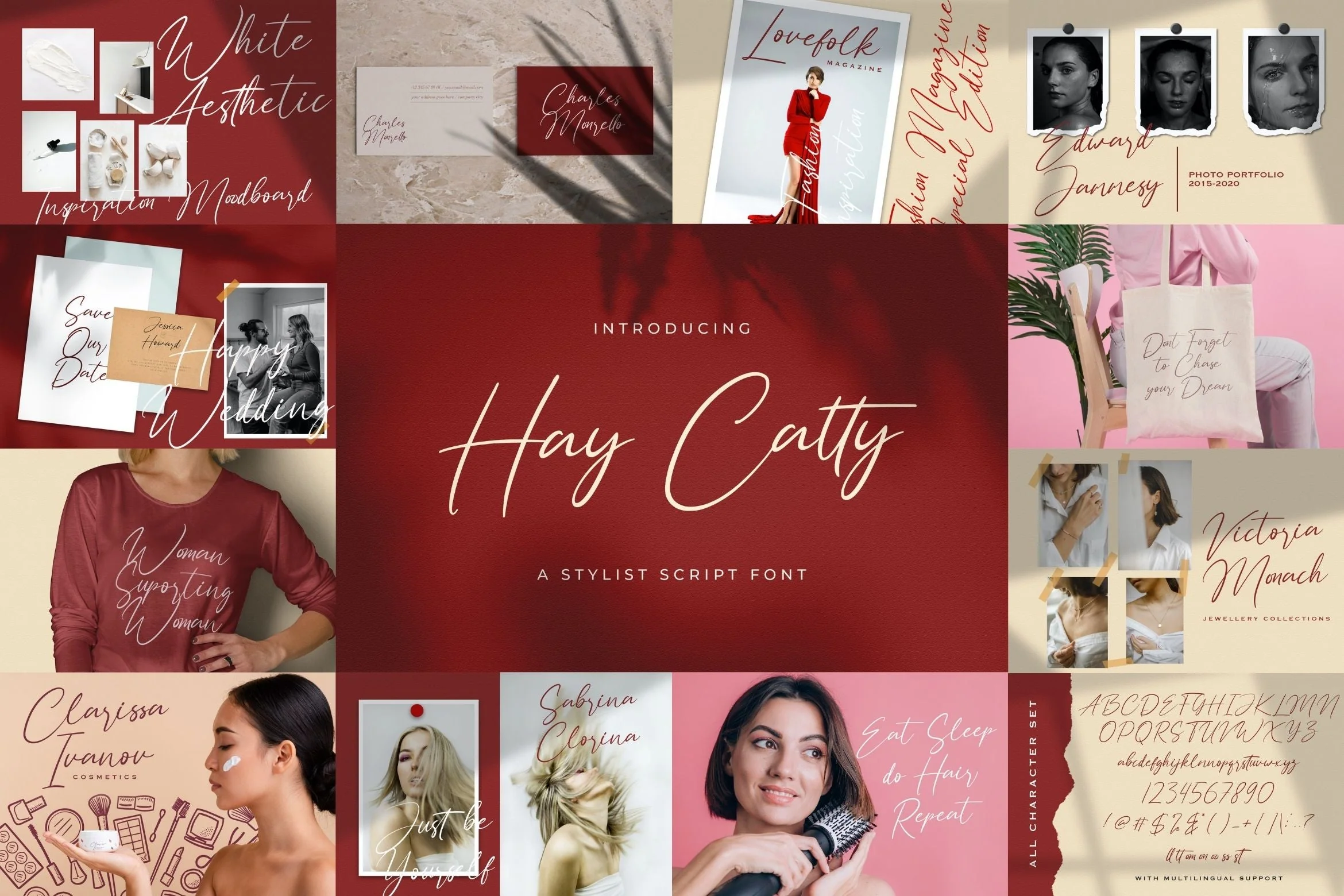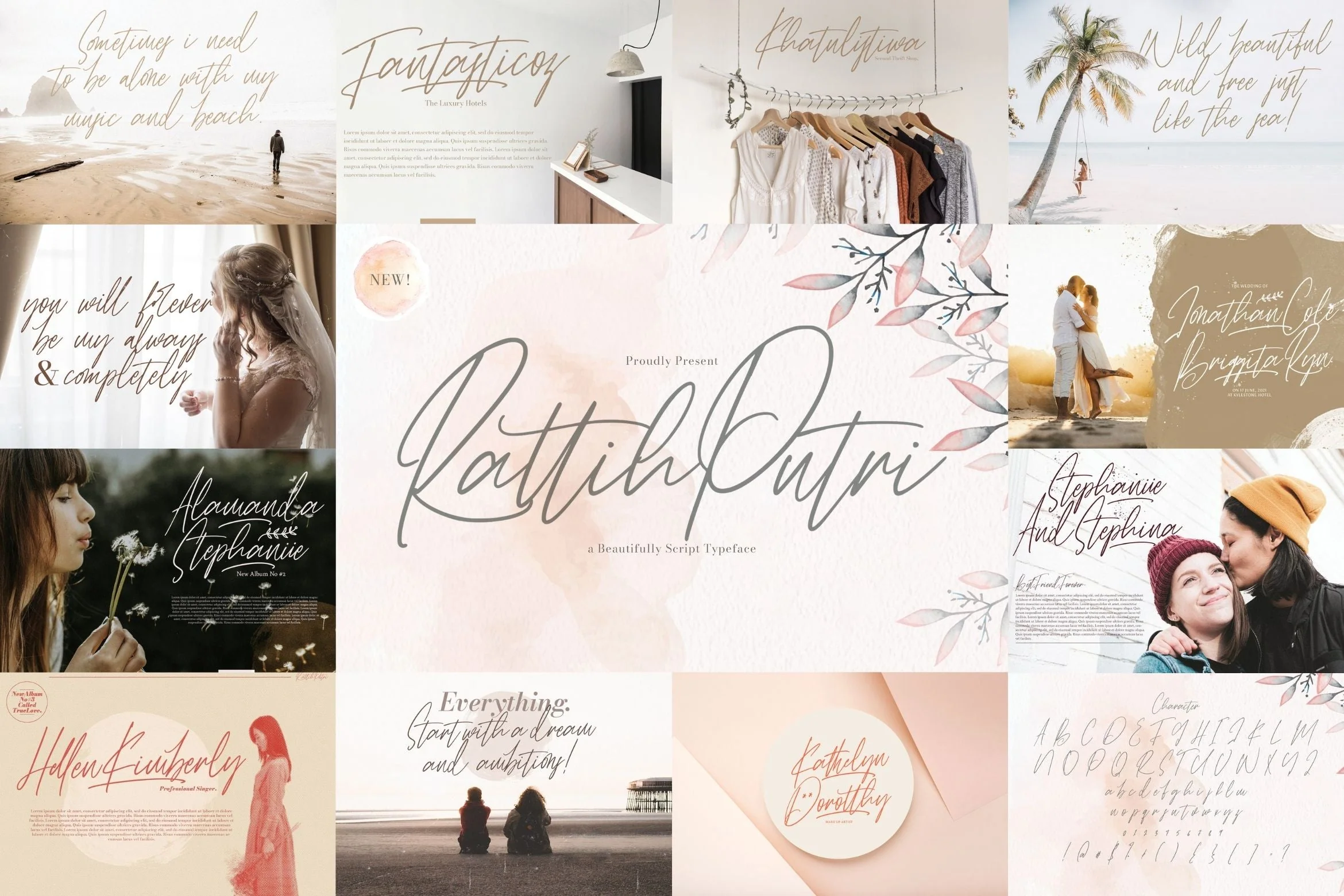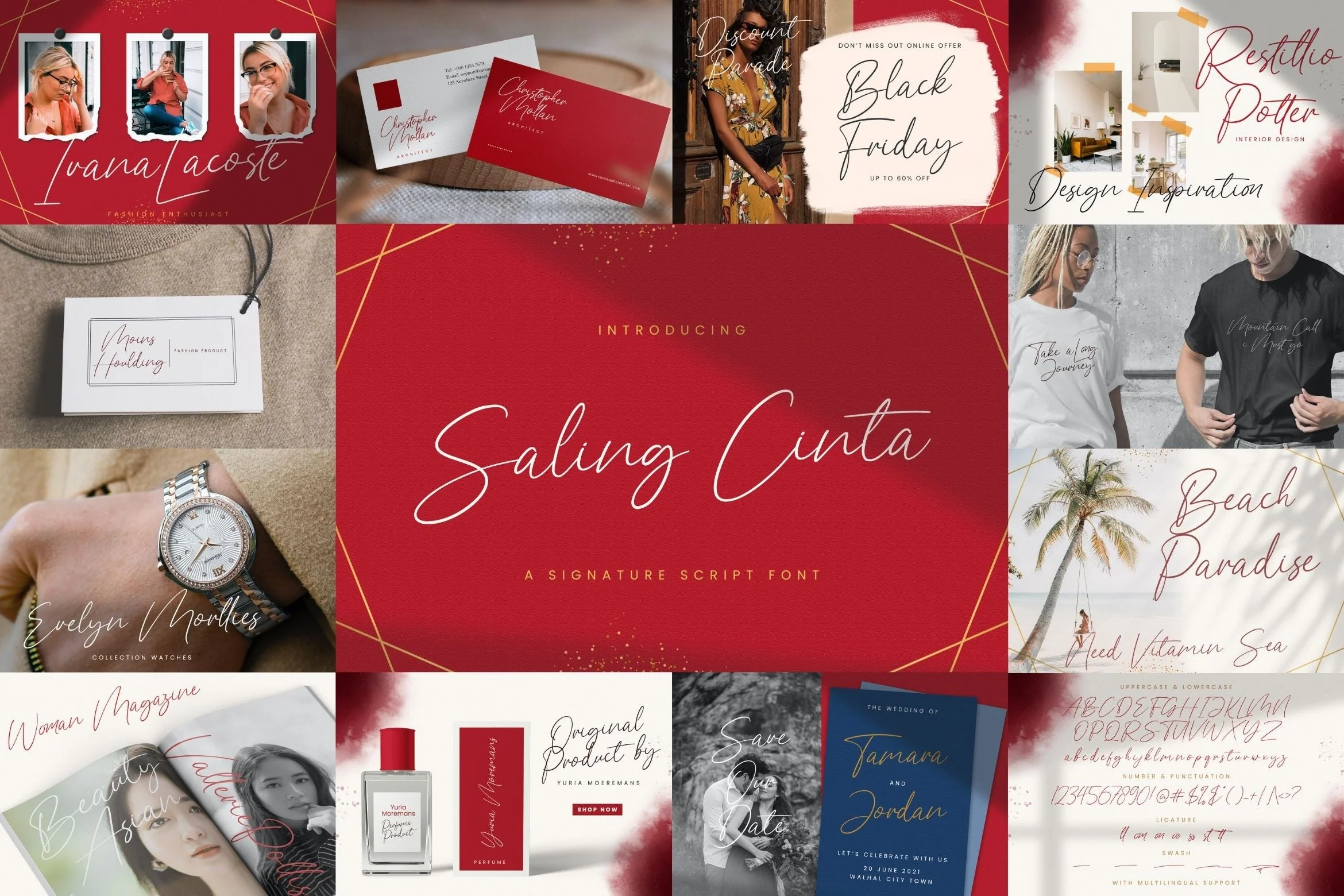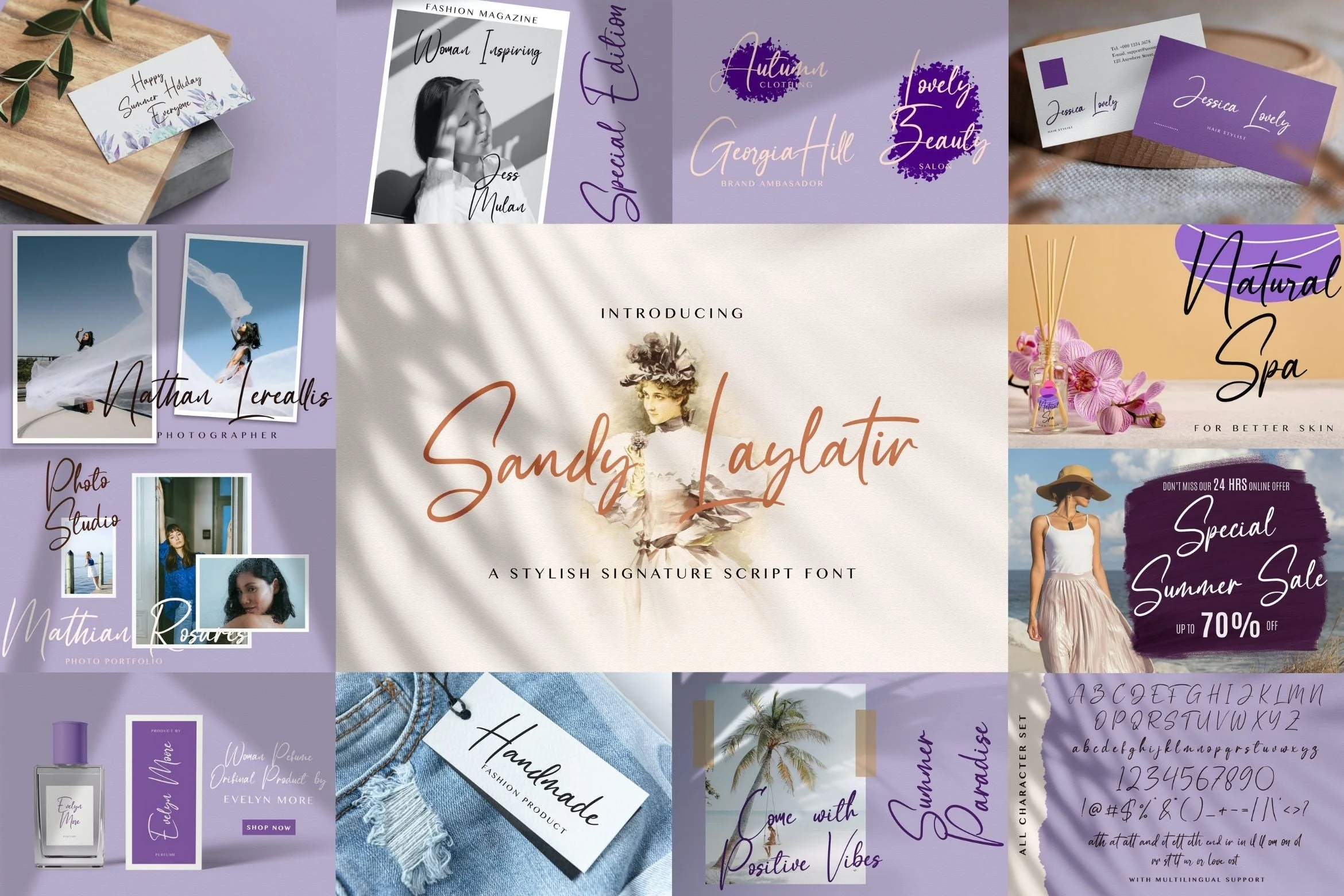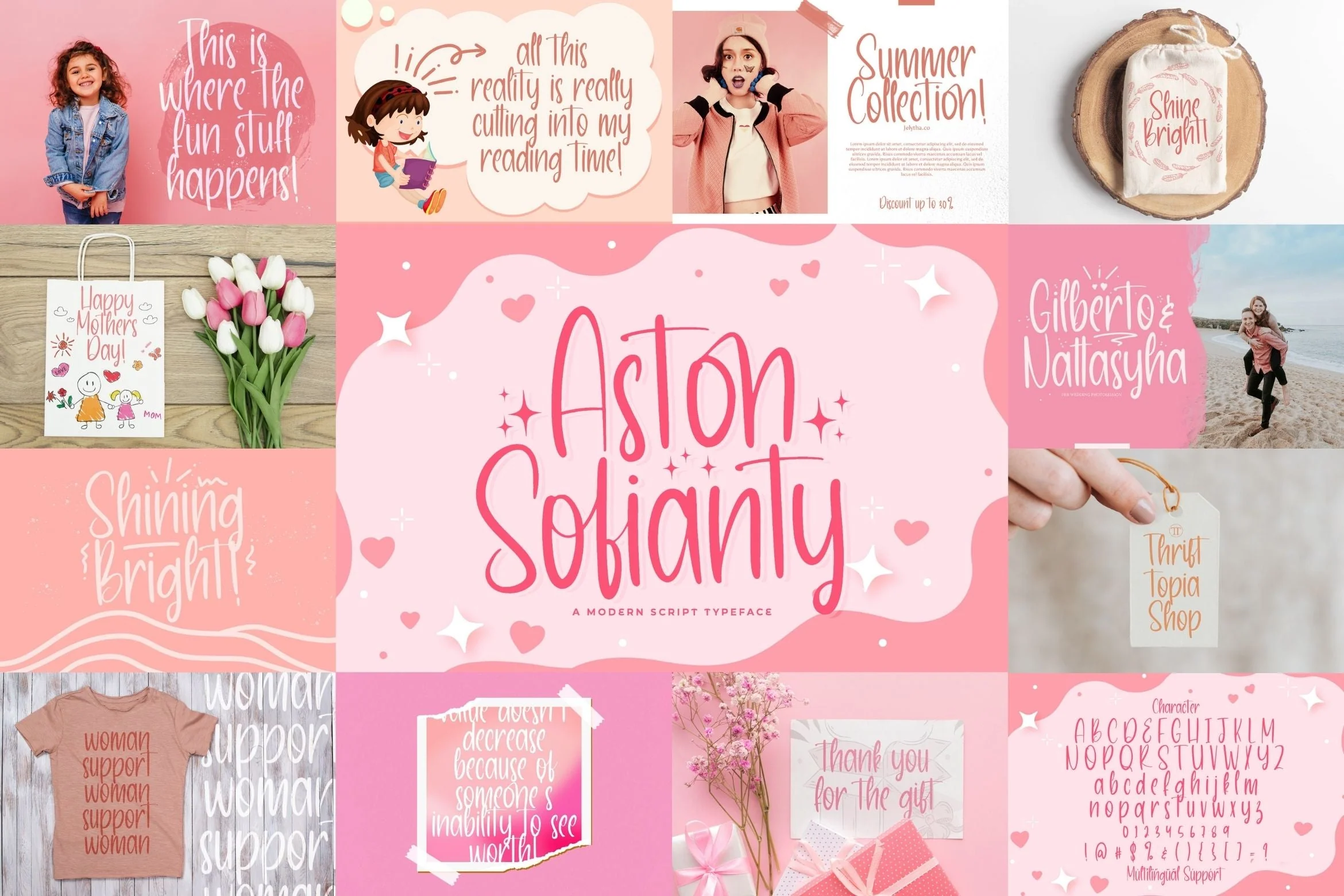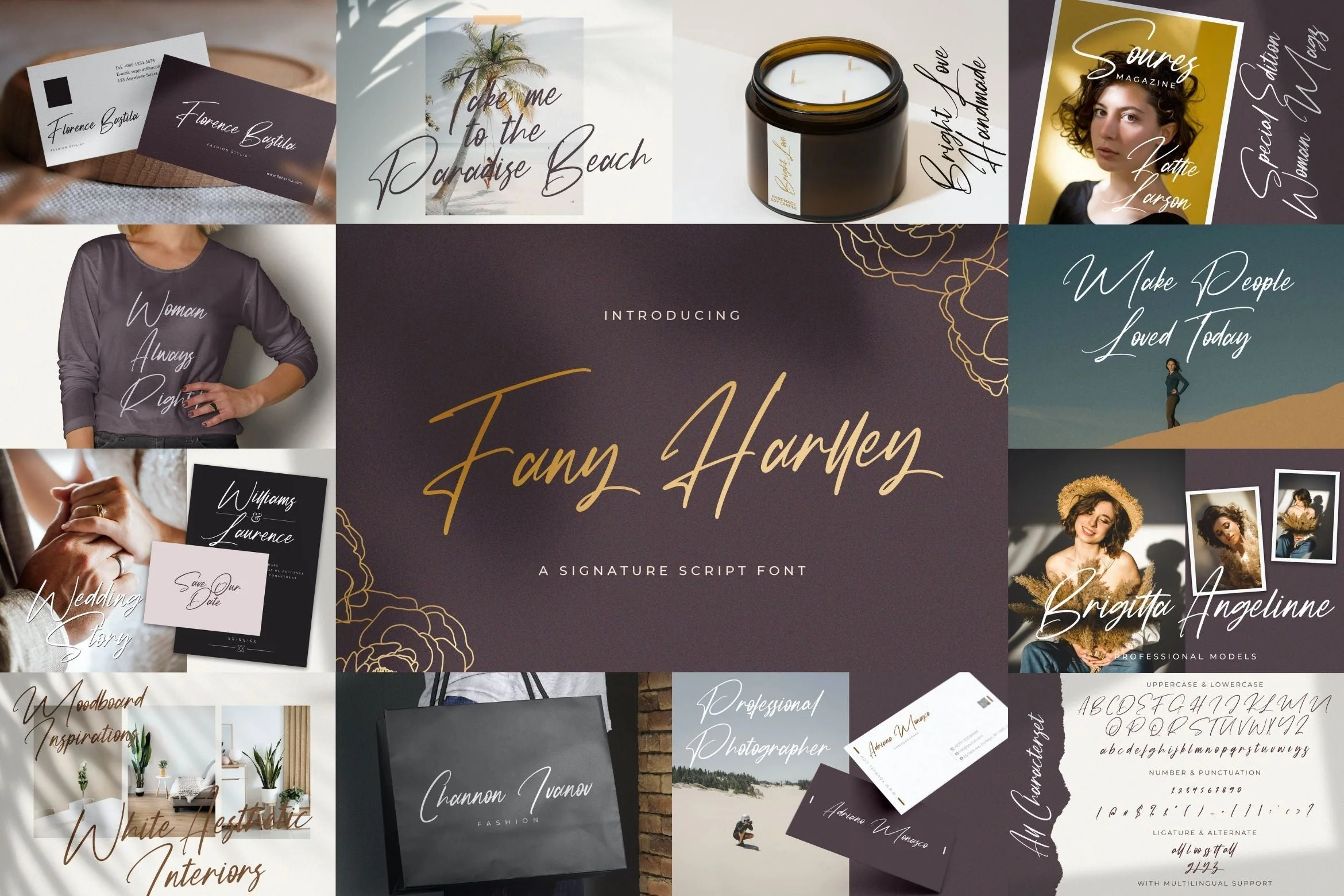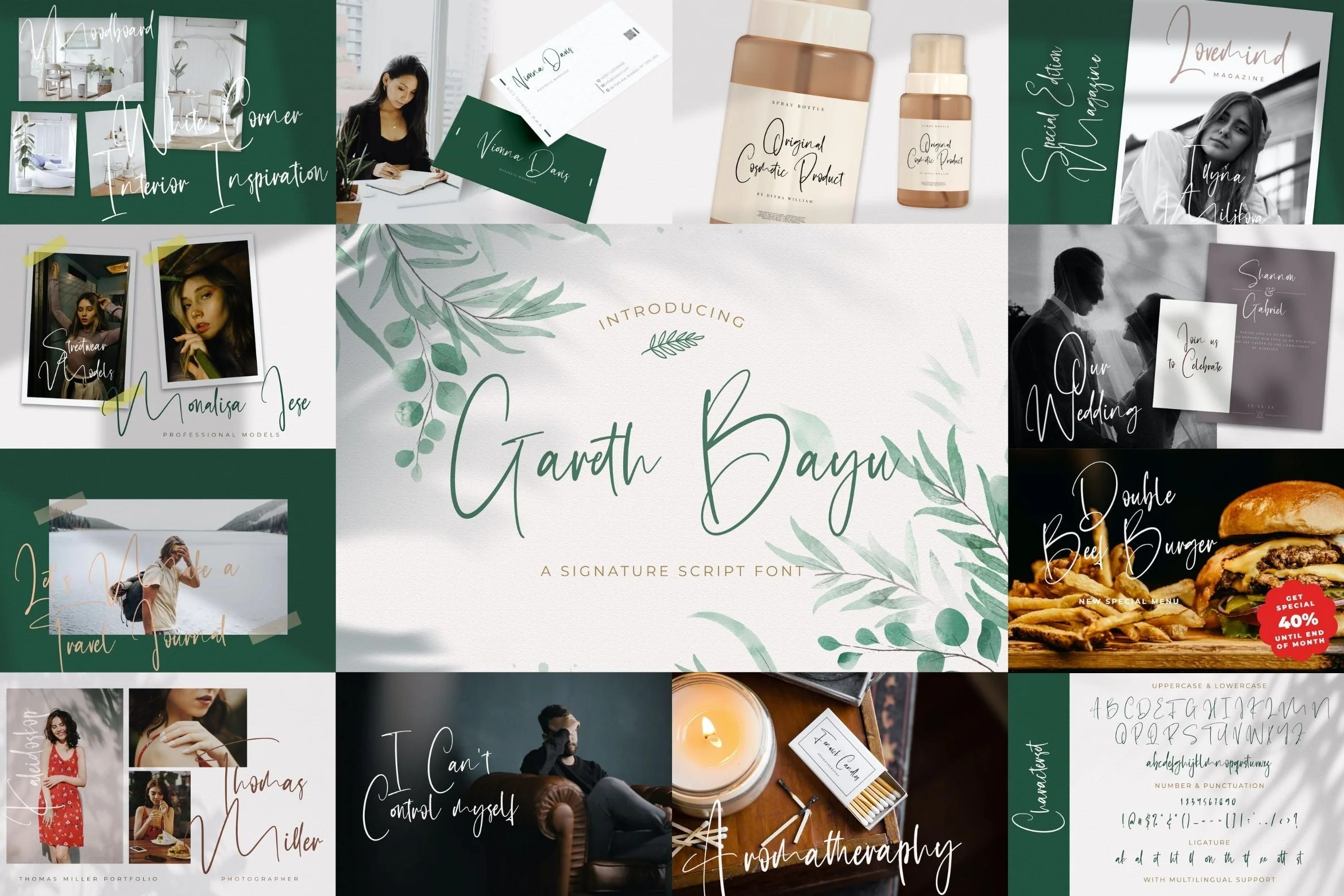
Handwritten Font Bundle Vol 4
Handwritten Font Bundle Vol 4 is a delicate, elegant and flowing handwritten font. This font bundle contains 8 high quality handwritting script font, it will look simply magical in a wide range of design projects, and also that will look particularly adept when used in logos, branding, packaging design, and much more. It has beautiful and well balanced characters and as a result, it matches a wide pool of designs. Add it to your most creative ideas and notice how it makes them come alive!
1. Gareth Bayu
2. Fany Harlley
3. Aston Sofianty
4. Sandy Lailyatir
5. Hesty Aqaky
6. Saling Cinta
7. Rattih Putri
8. Hay Catty